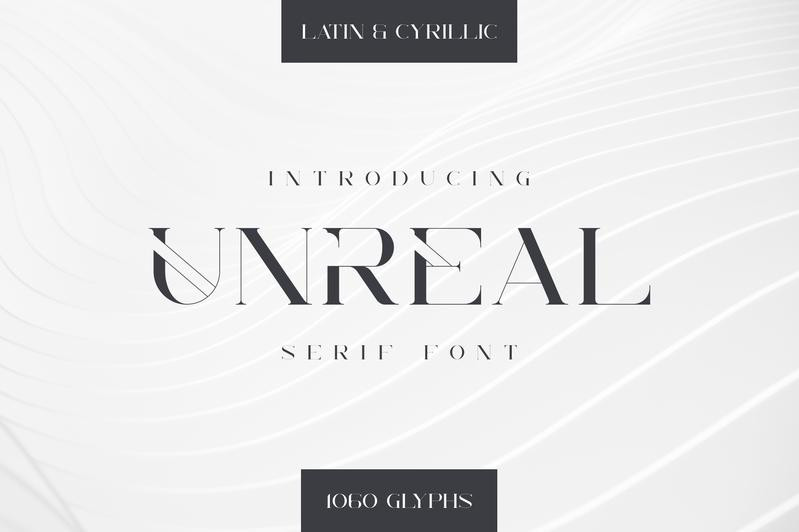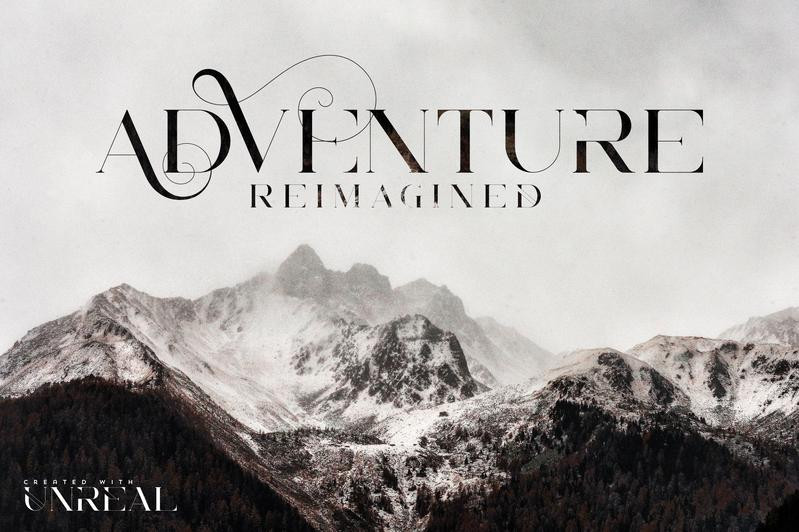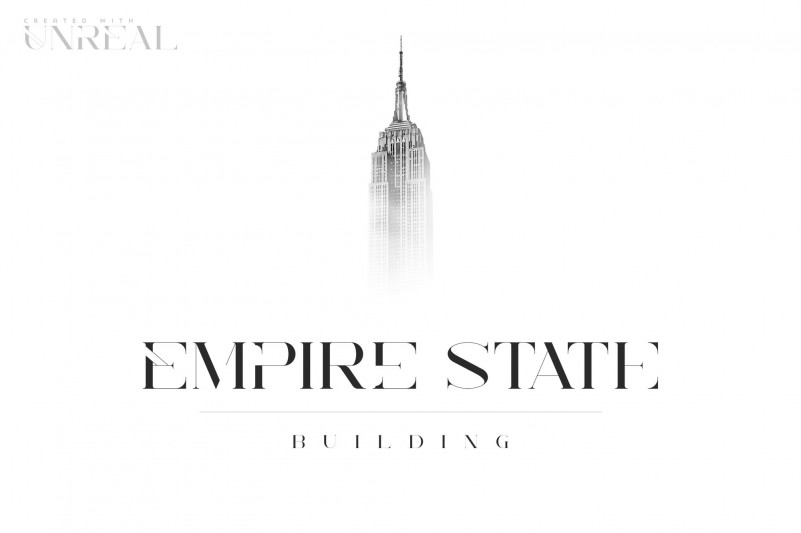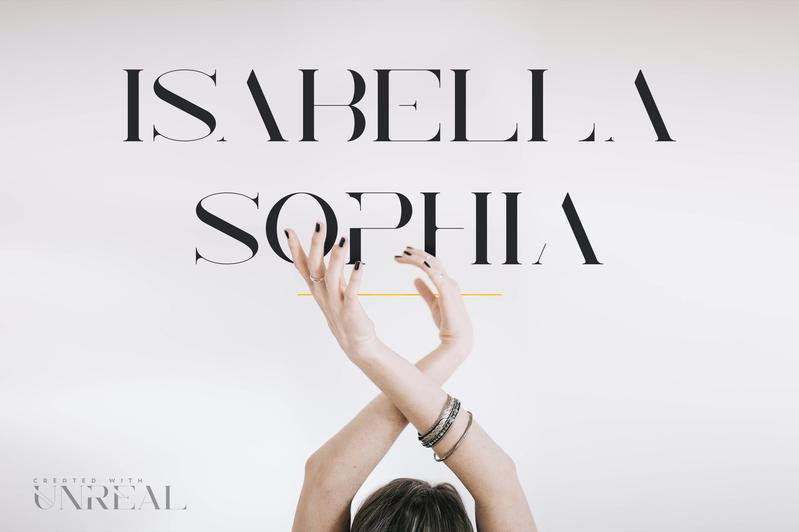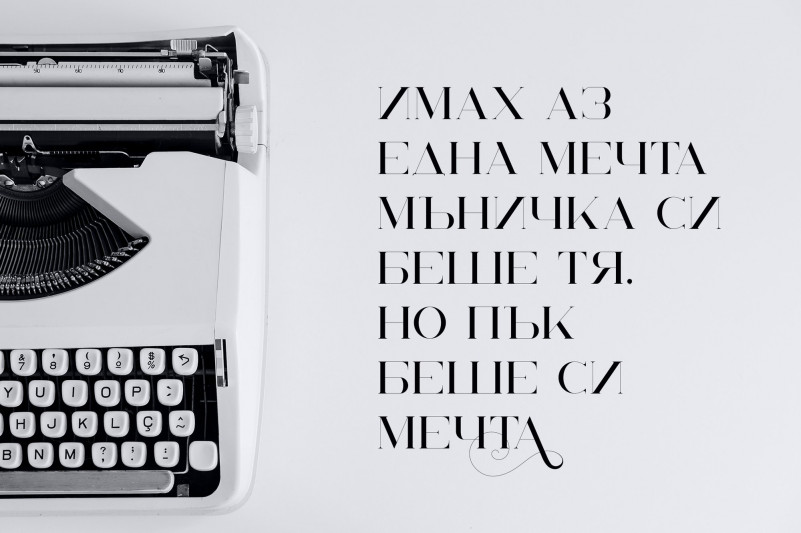
Unreal Serif Font
Unreal Serif Font – Latin & Cyrillic is all modern, clean font with latin and Cyrillic support, includes total 1060 glyphs, tons of alternate glyphs, and multilingual support. It’s a very versatile font that works great in large and small sizes.
Unreal Serif Font is perfect for branding projects, home-ware designs, product packaging, magazine headers – or simply as a stylish text overlay to any background image.
• Uppercase, numeral,punctuation & Symbol
• Total 1060 glyphs
• Cyrillic support – Russian, Ukrainian, Bulgarian and more
• Alternate glyphs
• Multilingual support